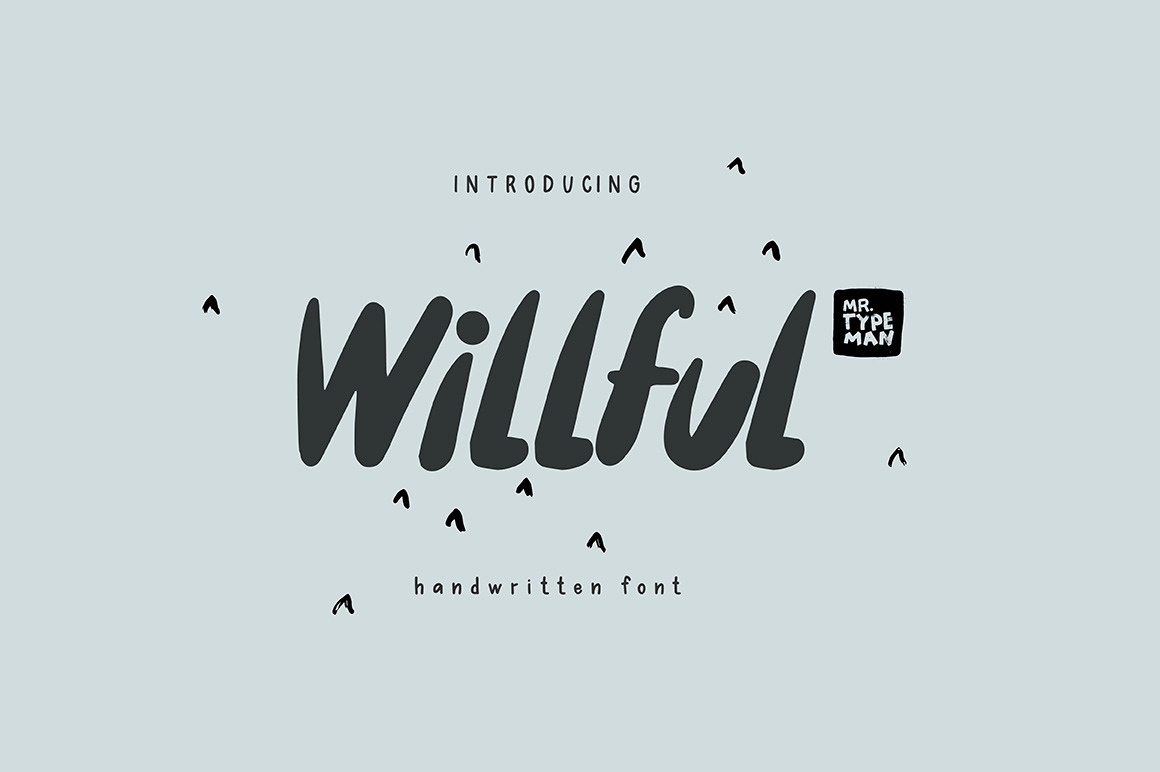
Willful Handwritten Brush Font
Take a look at my new font Willful with its light and airy outlines, which will add something cute and soft to your designs. The font is amazing in itself and will be perfectly combined with thin handwritten typefaces. Willful comes with Uppercase, Lowercase and Standard Punctuation.